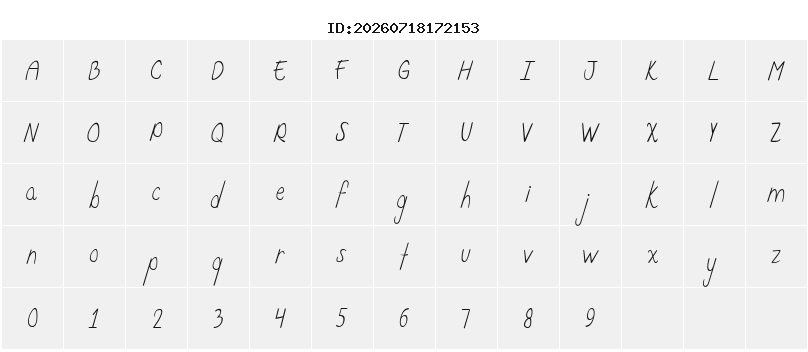
• Font Name: Curzab
• Designer: Zabdi Salce
About Curzab .ttf
Curzab .ttf is a modern, elegant sans-serif font designed for ultimate readability and visual harmony. Perfect for branding, headlines, web design, and print materials.